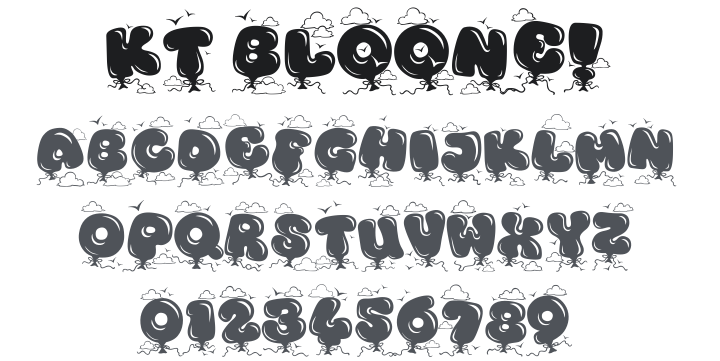
Kingthings Bloone! Font
About Kingthings Bloone!
Exactly what is says on the tin - no more no less - I still hate that letters are the same as each other in display faces (?) so no upper and lower case, just alternates to be mixed up.